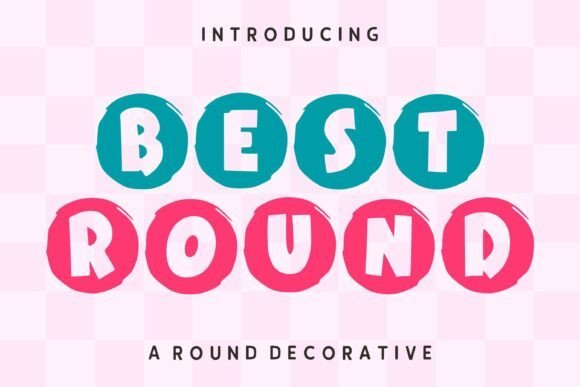
The Perfect Font for a Bright and Playful Touch
Have you ever been brainstorming ideas for a project and suddenly a burst of creativity hits you? That’s exactly what happened to me when I stumbled upon the Best Round Font. I was searching for the perfect font to give a cheerful vibe to a client’s branding, and this eye-catching display font immediately caught my attention.
The Best Round Font features bold uppercase characters set inside rounded shapes, creating a modern and playful style that’s perfect for creative projects. Its unique design makes it a valuable asset for designers looking to add a friendly and approachable touch to their work.
With its thick lettering and circular backgrounds, the Best Round Font is ideal for branding and standout designs that need a strong visual impact. Whether you’re a seasoned designer or a beginner, this font is sure to bring a smile to your face and inspire your next creative project.
Key Features of “Best Round Font”
- Unique Characteristics: The “Best Round Font” features a distinctive rounded design, with smooth curves and a friendly, approachable feel.
Review of “Best Round Font”
As a designer, I was excited to try out the “Best Round Font” and see how it would perform in various projects. Here’s my honest review.
- Legibility: The font is extremely legible, even at small sizes, making it perfect for body text and headings.
- Roundness: The font’s rounded edges give it a friendly and approachable feel, ideal for branding and UI design.
- Flexibility: The font is highly versatile and can be used in a variety of contexts, from digital to print.
- Line height: The font’s line height can be a bit too condensed, which may affect readability in certain situations.
- Lack of bold weights: The font only comes in regular and italic weights, which may limit its use in certain design scenarios.
While the “Best Round Font” has some limitations, its strengths far outweigh its weaknesses. It’s a solid choice for designers looking for a friendly and approachable font. With a bit more development to address its limitations, this font could become a top contender in the design world.
The Best Round Font is ideal for creating playful, modern designs. It’s commonly used in:
– Infographics
– Brochures and flyers
To get the most out of the Best Round Font, try combining it with other design elements, such as bold lines and bright colors. You can also experiment with different font sizes and styles to create visual interest.